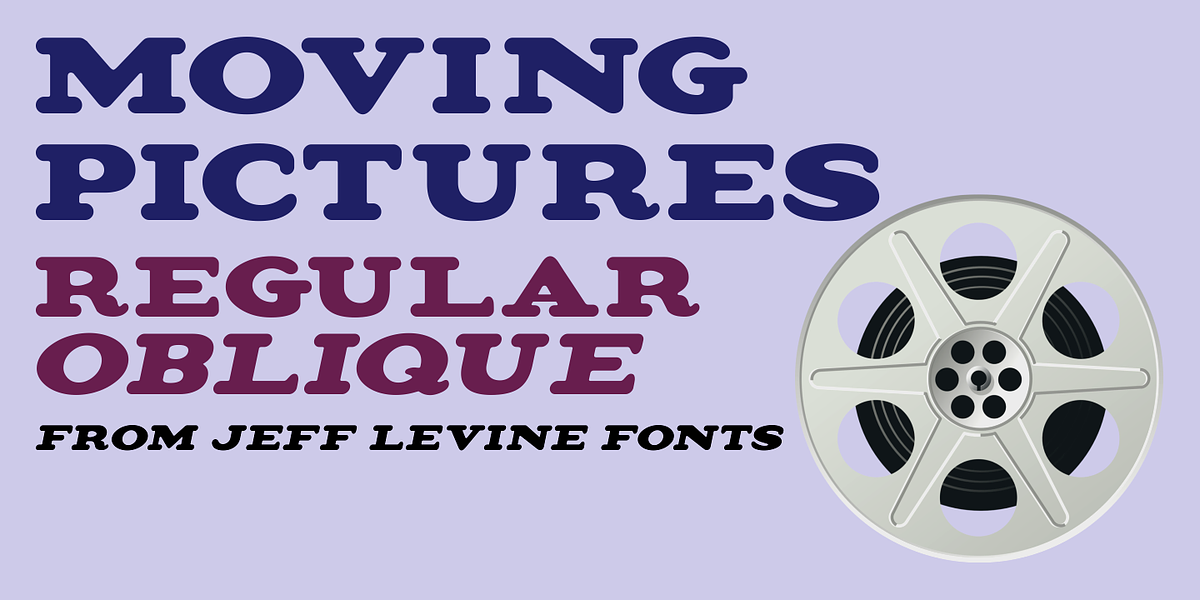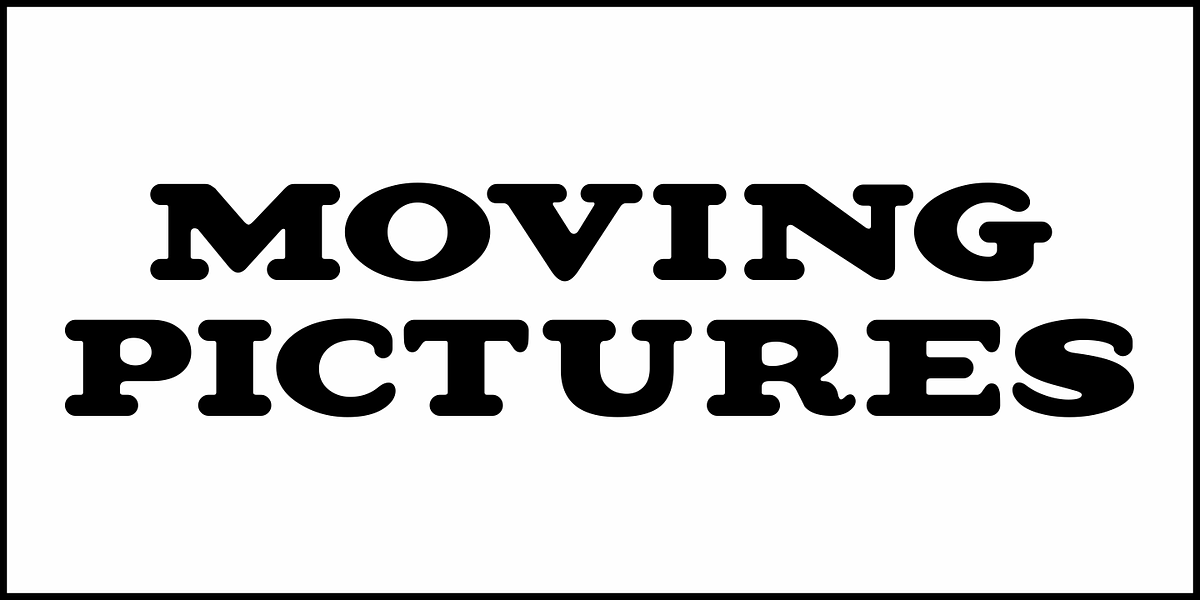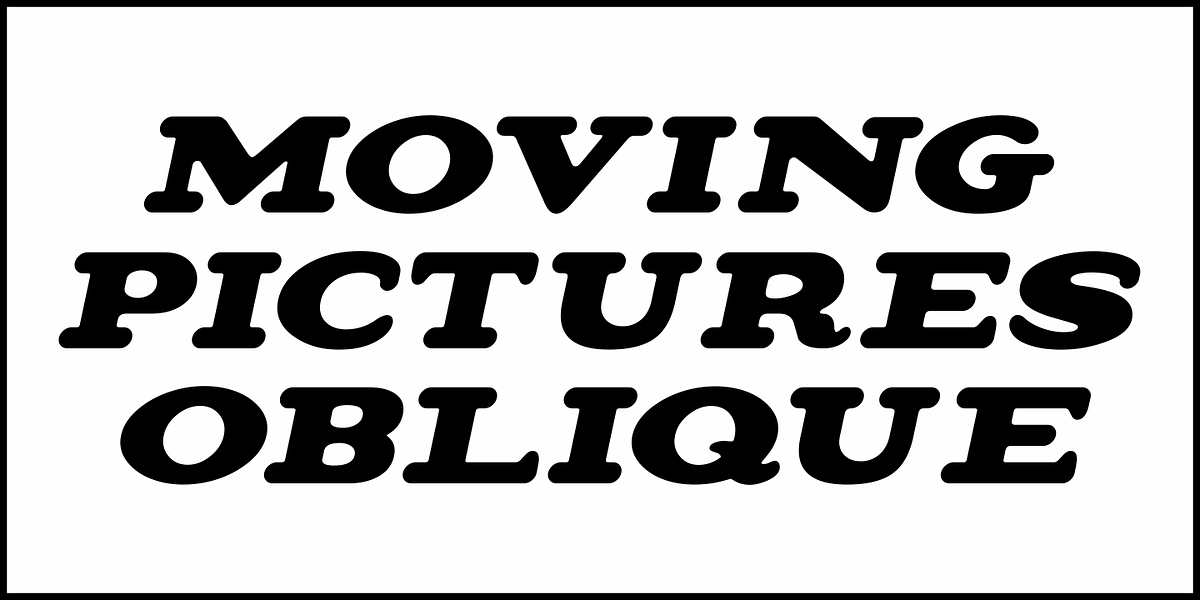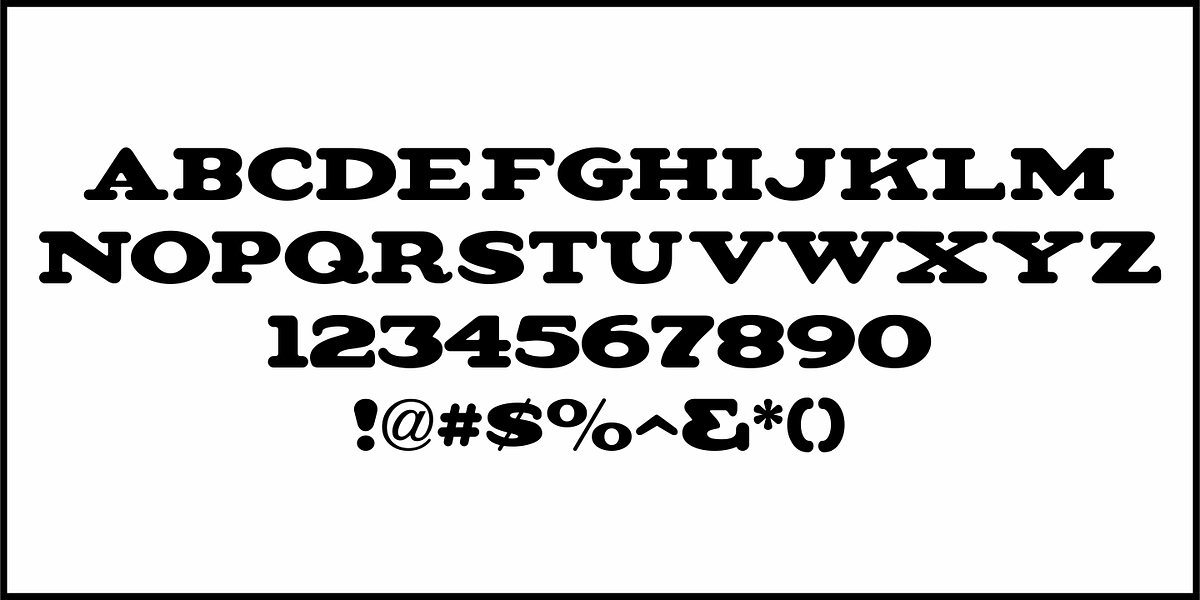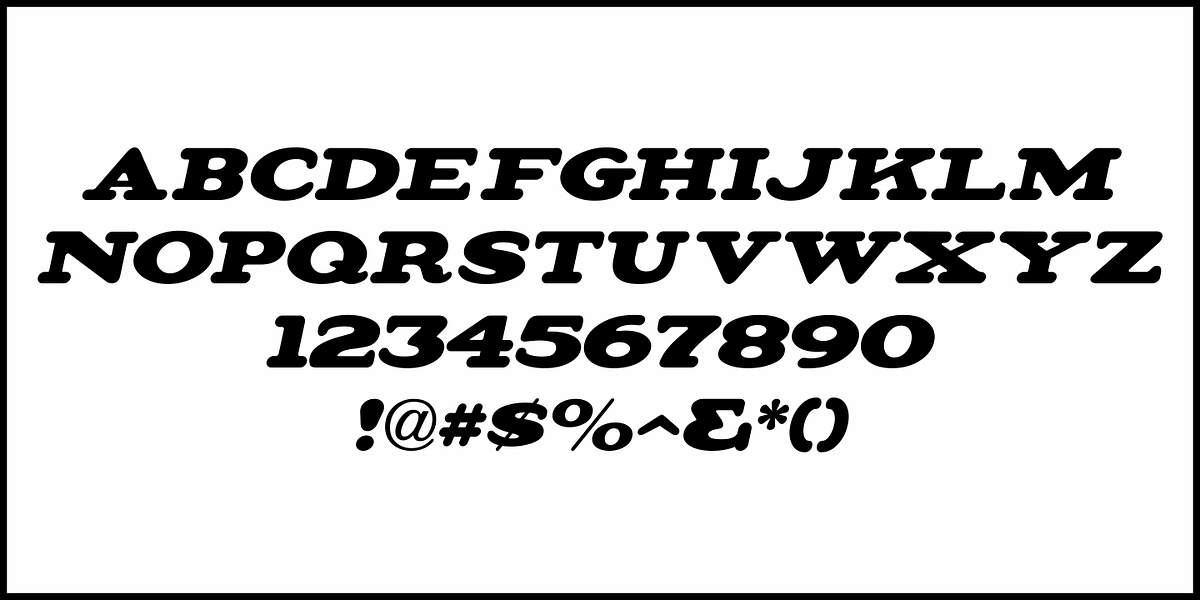
Moving Pictures JNL
Hand lettering often was the choice over metal typography for numerous ads, logos and headlines found within magazines published prior to the 1940s.
For example, the July 30, 1920 issue of Moving Picture World had its cover title pen rendered in a wide, extra bold serif style with rounded terminals and Art Nouveau influences.
This served as the model for Moving Pictures JNL, which is available in both regular and oblique versions.